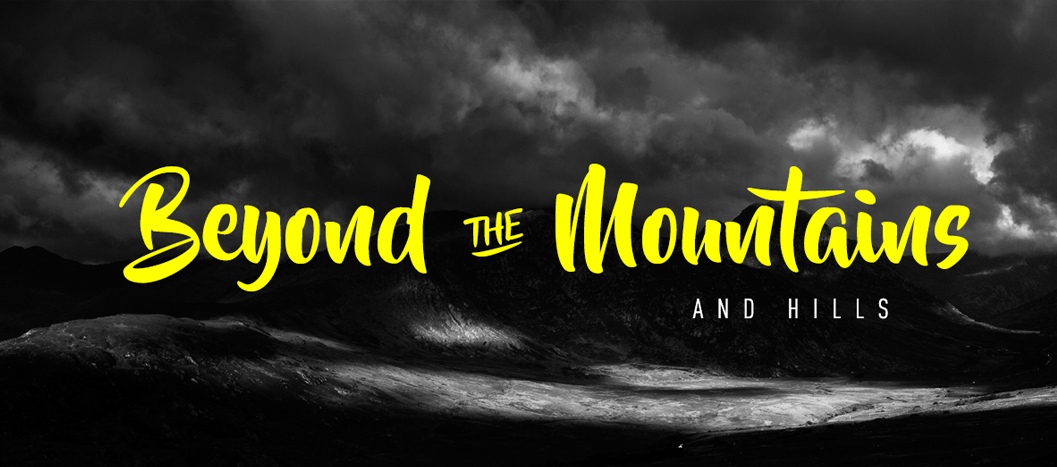
Beyond The Mountains Font
Beyond The Mountains Font is perfect for outdoor adventure branding, hiking gear packaging, national park signage, wilderness travel magazines, mountain resort communications, and expedition equipment labels. This inspiring typeface works exceptionally well in camping supply catalogs, adventure tourism marketing, and rugged lifestyle brand identity systems.
What makes Beyond The Mountains Font so exciting is its adventurous spirit that captures the essence of exploration and natural wonder. The font features bold, sturdy letterforms with organic textures and weathered characteristics that evoke the rugged beauty of mountain landscapes. Its adventurous aesthetic demonstrates exceptional durability and outdoor authenticity, making it ideal for brands seeking to convey exploration, freedom, and connection with nature.
Beyond The Mountains Font comes in multiple style variations including Regular, Bold, Condensed, and Weathered versions. The font family also includes mountain-inspired decorative elements, compass symbols, and trail markers that enhance the outdoor adventure quality and provide extensive creative possibilities for wilderness-themed design applications.
The font's robust construction ensures excellent visibility across challenging outdoor environments, from large-scale trail signage to detailed equipment labeling. Professional designers appreciate its comprehensive character support and weather-resistant design qualities that maintain clarity under extreme natural conditions.
Beyond The Mountains Font has established itself as the go-to choice among creative professionals working with outdoor and adventure brands. Its ability to convey exploration and natural connection makes it an invaluable asset for companies seeking to establish authentic relationships with outdoor enthusiasts through inspiring typography.